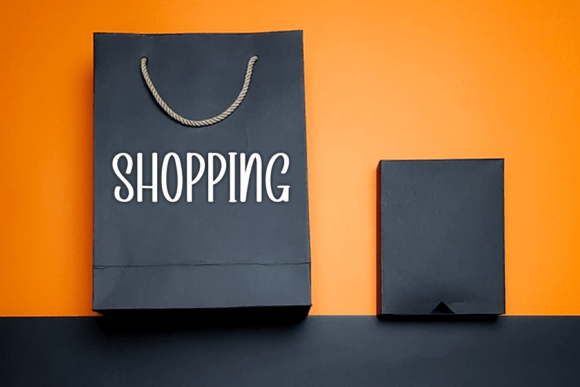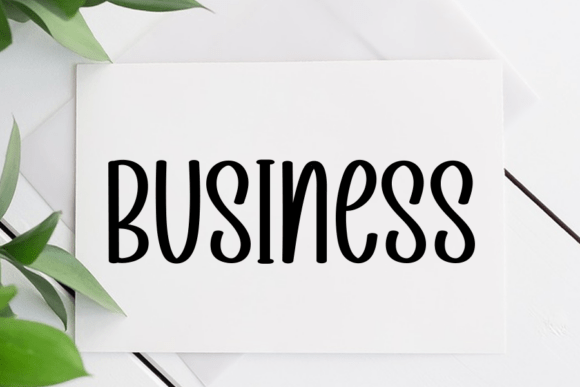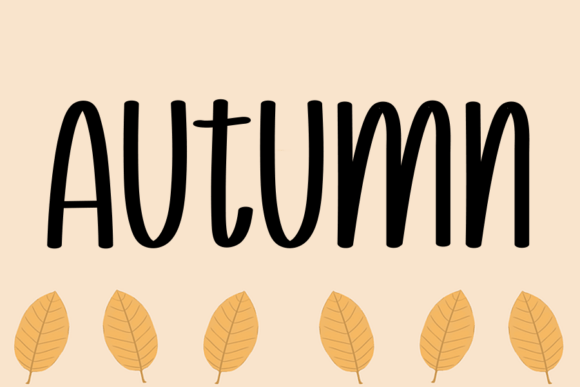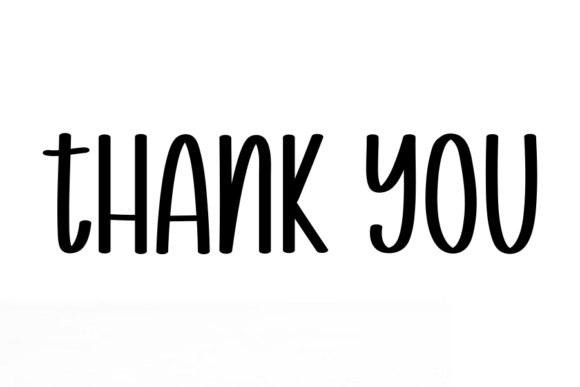
Introduction to Partying Font
Partying is a sweet and cursive handwritten font.
This gentle font will look gorgeous on a variety of design ideas It will add a joyful and romantic touch to each of your projects.
Partying Font offers exceptional quality and versatility, making it a valuable addition to your design toolkit. Whether you’re creating for personal projects or commercial use, Partying Font delivers professional results.